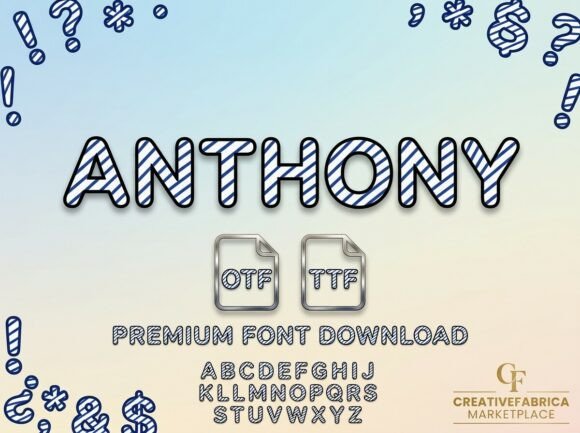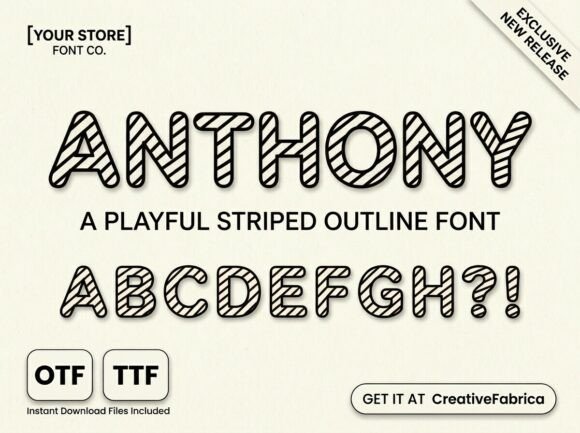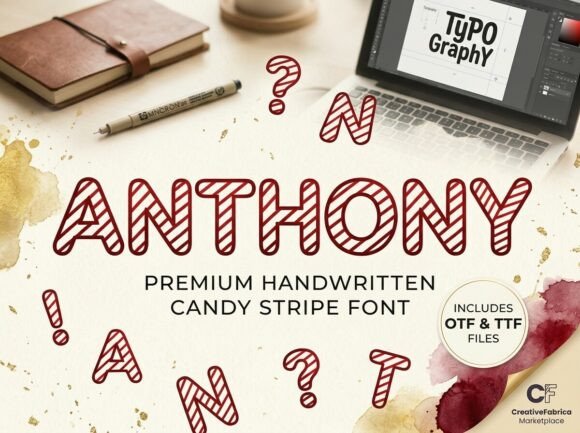
The Sweet Spot: Discovering Anthony Font
I still remember the design project that led me to Anthony Font. I was working on a festive holiday branding campaign for a local candy shop, and I was struggling to find the perfect font that captured the nostalgic joy of a classic confectionery. The client wanted something playful, yet sophisticated; bold, yet elegant. After hours of scouring font libraries and marketplaces, I stumbled upon Anthony Font, and it was love at first sight! ✨
A Honest Review: What I Love (and a Few Quirks)
Anthony Font is a premium handwritten candy stripe font that has become a staple in my design toolkit. Here’s what I love about it:
• Unique and playful design: The bold, rounded letterforms filled with a distinctive diagonal stripe pattern instantly evoke the feeling of traditional peppermint sticks and candy canes.
• High-impact headers: The font’s friendly, hand-inked outlines and rhythmic internal texture make it perfect for creating eye-catching seasonal headers and titles.
• Versatile and adaptable: Anthony Font works beautifully for holiday-themed branding, independent sweet shop logos, playful children’s party stationery, and more.
As with any font, there are a few quirks to keep in mind:
• ⚠️ Limited use cases for body text: Due to its bold and playful nature, Anthony Font is best suited for display text and headers. It may not be the best choice for body text or lengthy paragraphs.
• 🤔 Glyph limitations: While Anthony Font has a range of OpenType features and glyphs, it may not have every special character or symbol you need. Be sure to review the font’s character set before using it in your project.
The Story Behind Anthony Font
Anthony Font was designed by a talented type designer who drew inspiration from classic confectionery and holiday treats. The font’s creator wanted to capture the nostalgic joy and playfulness of traditional peppermint sticks and candy canes. The result is a unique and charming font that’s perfect for adding a touch of sweetness to your design projects.
What type of font is Anthony Font? Anthony Font is a premium handwritten candy stripe font.
Does Anthony Font include OpenType features and glyphs? Yes, Anthony Font includes a range of OpenType features and glyphs, including stylistic alternates and ligatures.